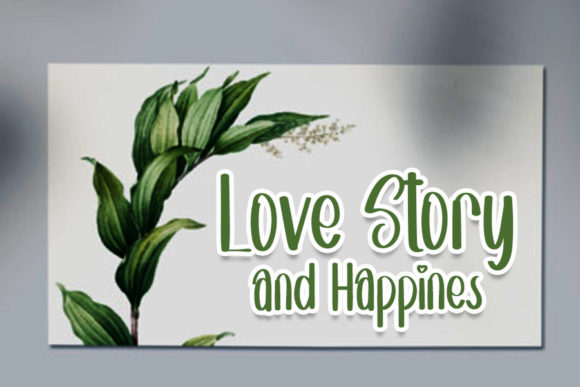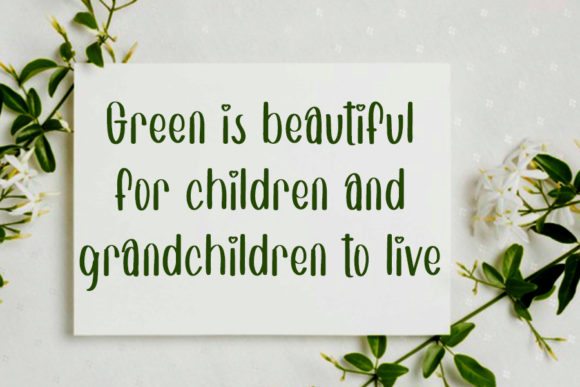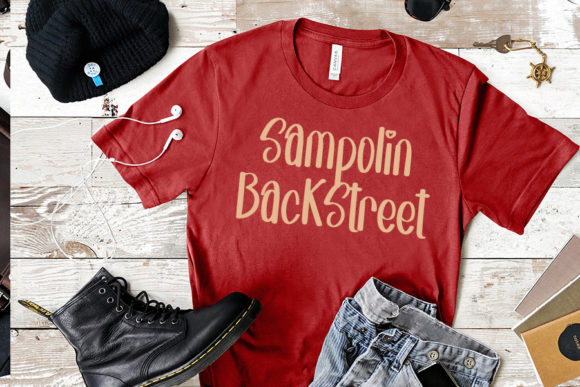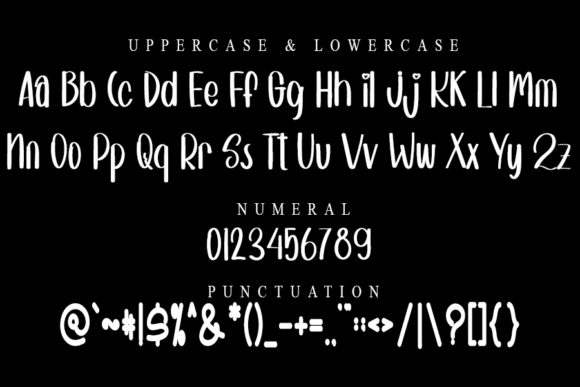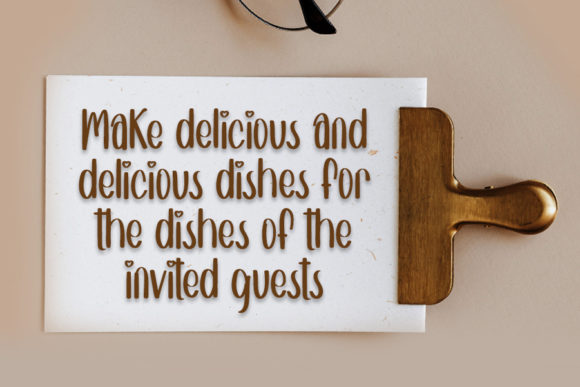
Introduction to Khokie Rain Font
Do you remember that moment when a single font choice completely transformed the look and feel of your design? For many of us, it’s a moment that sparks creativity and sets our imagination ablaze. If you’re on the hunt for a font that will add a touch of whimsy to your next creative project, you’re in luck!
Meet Khokie Rain Font, a beautiful and playful brushed handwritten font that’s sure to bring your designs to life. With its high quality design and transparent background, this font is a valuable resource for any designer looking to add a personal touch to their work. Whether you’re creating graphics for Instagram or crafting calligraphy scripts for DIY projects, Khokie Rain Font is the perfect choice to turn your ideas into stunning pieces of art.
Key Features of Khokie Rain Font
- High-quality, unique design ideal for creative projects, such as digital art, graphics, and web design.
- The font’s distinctive, stylized characters make it perfect for adding a touch of whimsy and personality to any creative project.
Honest Review: Khokie Rain Font
As a designer, I’m always on the lookout for high-quality design resources to elevate my creative projects. Recently, I came across the Khokie Rain Font, and I’m excited to share my honest review with you.
- ✨ Unique and creative design: The Khokie Rain Font has a quirky, hand-drawn feel that sets it apart from other fonts.
- ⚠️ Limited font weights: The font only comes in a few weights, which may limit its versatility in certain design projects.
- ⚠️ Not ideal for small text: The font’s unique design can make it difficult to read in small text sizes.
Overall, I’m impressed with the Khokie Rain Font’s creative design and transparent background. While it may have some limitations, it’s a great addition to any designer’s toolkit, especially for creative projects that require a unique touch.
The Khokie Rain Font is a high-quality design resource that offers a unique and creative touch to any project. With its transparent background, this font is perfect for designers looking to add a professional and elegant feel to their work.
Here are a few tips for getting the most out of the Khokie Rain Font: experiment with different font sizes and colors to create a unique look, use the font in combination with other design elements to add depth and interest, and consider using the font in a creative project such as a wedding invitation or a business card.
The Khokie Rain Font is perfect for a variety of creative projects, including: wedding invitations, business cards, brochures, and social media graphics. It is also a great choice for designers looking to add a touch of elegance and sophistication to their work.